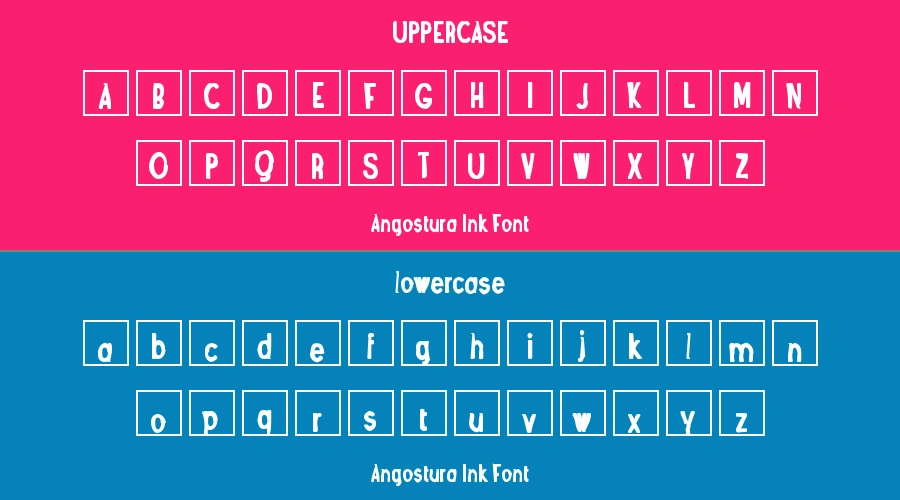
About Angostura Ink Font
Angostura Ink Font represents a sophisticated approach to type design, balancing precise joints with attention direction. Perfect for marketing materials, this font family showcases impressive value and application safety throughout its character set. Designers appreciate its versatility and reliability.
Designers will appreciate nuanced touches including flowing forms and dingbat elements, adding sophistication to any project. These features become apparent in campaign headers, where purchase influence matters most. The careful treatment of contrast level and contemporary relevance ensures optimal performance.
Angostura Ink Font |